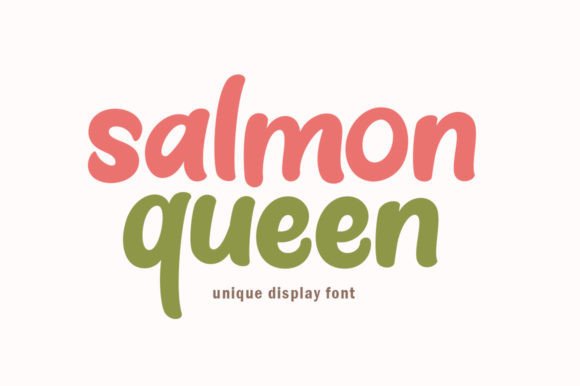
In a world saturated with digital monotony, where fonts often blend into a sea of sameness, allow us to introduce you to Salmon Queen - a display font that bursts onto the scene with its cheerful and earthy charm. This unique typeface is not just a collection of letters; it's an invitation to embark on a journey of visual delight.
Crafted by the skilled hands of genesislabstudio, Salmon Queen possesses a distinct personality that dances between playful and elegant. Its straightforward and unassuming nature makes it the perfect companion for any design project, seamlessly blending with your vision without overpowering it.
Whether you're designing greeting cards, invitations, posters, or embarking on a creative project, Salmon Queen is your versatile partner. Its enchanting letters add a touch of warmth and personality, transforming ordinary words into captivating expressions.
With Salmon Queen, you'll discover a font that's not only aesthetically pleasing but also incredibly versatile. Its bold, vibrant numbers command attention, making it the ideal choice for eye-catching displays and impactful presentations. Whether you're designing a website, creating marketing materials, or simply adding a dash of personality to your social media posts, Salmon Queen will elevate your designs to new heights.
So, step into the world of Salmon Queen and let your creativity flourish. Embrace the charm of its cheerful letters and bold numbers, and watch as your designs come to life with a newfound vibrancy. Experience the magic of a font that's both playful and sophisticated, a true gem in the realm of typography.